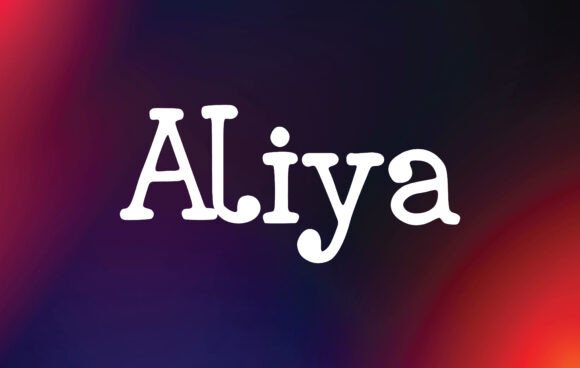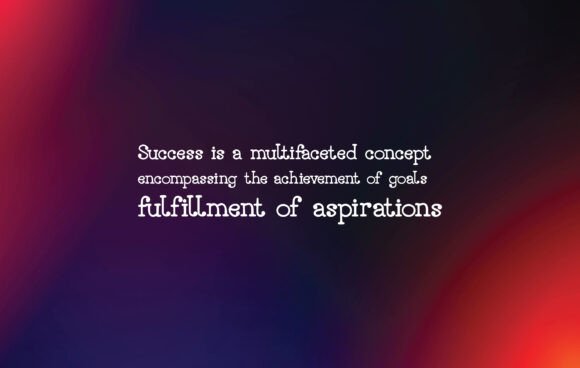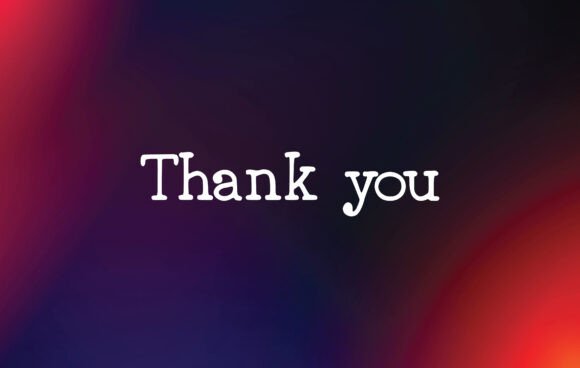
Aliya Font: A Cute Handwritten Font for Branding & Social Media Design
About the Aliya Font
The Aliya Font is here to transform your projects with its distinctive character and style. Aliya is a lovely and beautiful handwritten font.This font has the potential to take your creative ideas to the highest level.It is the best choice for creating eye catching logos, branding and quotes.
Aliya Font Usage Examples
Aliya Font Example